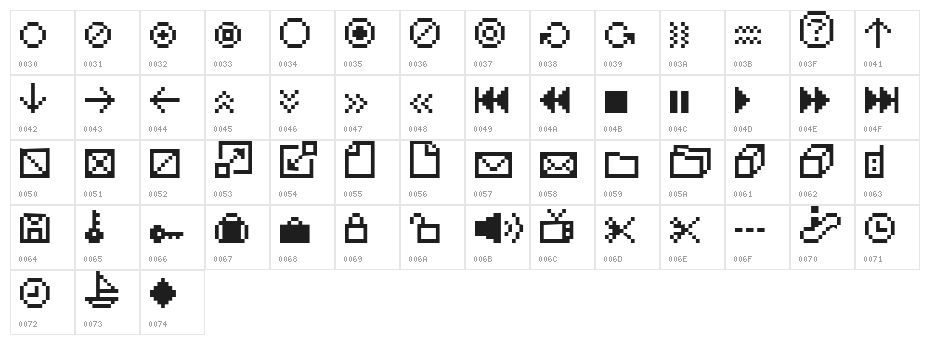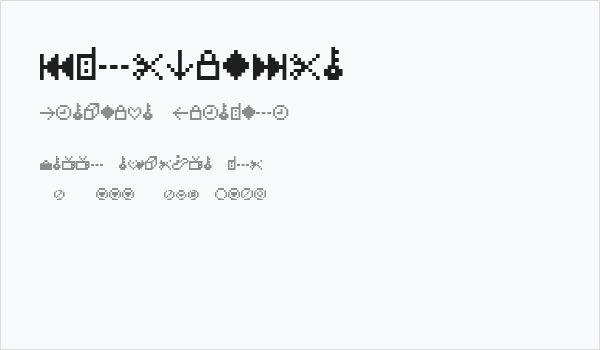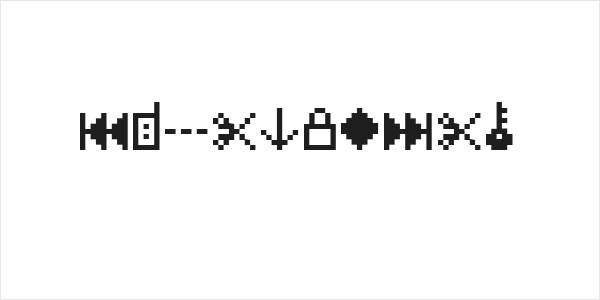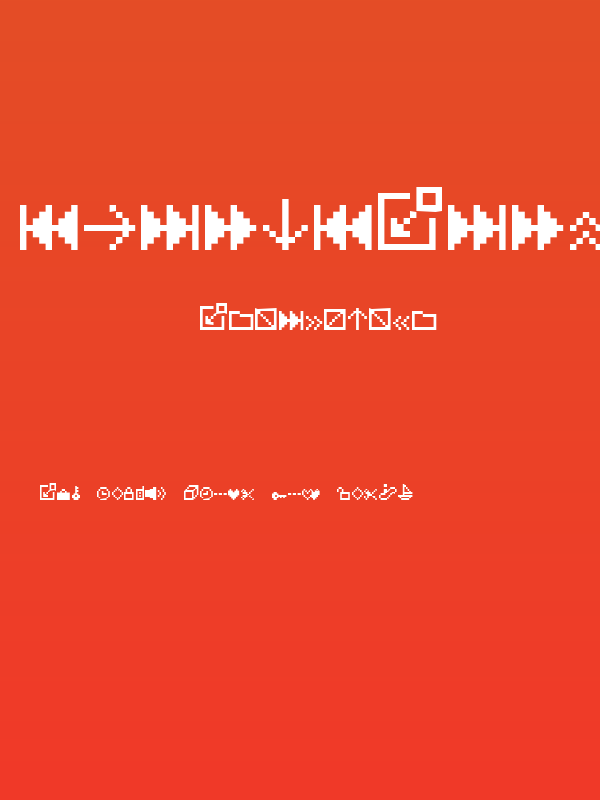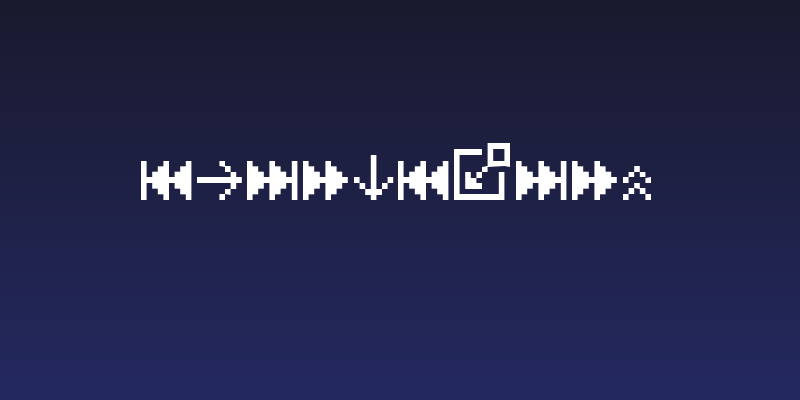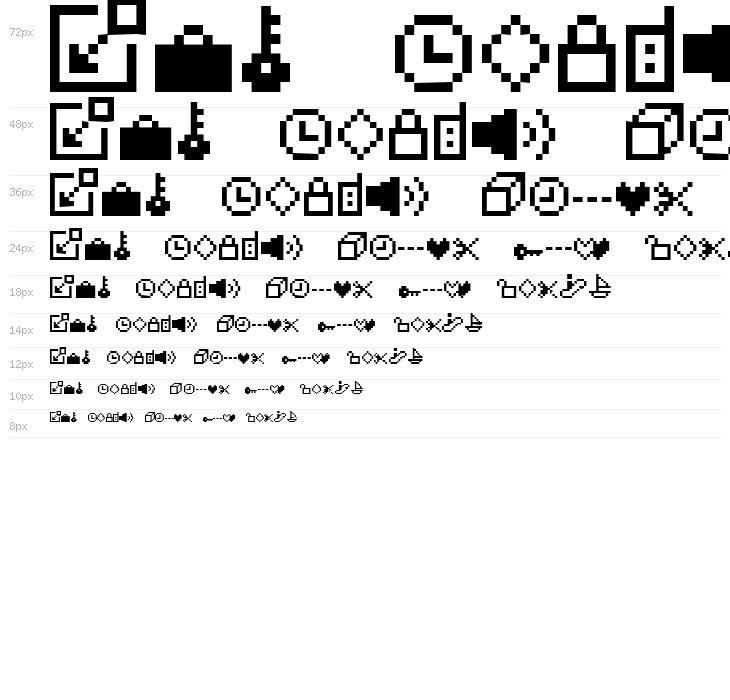
IconBitOne Font
IconBitOne Description
This is not a traditional font but rather a collection of pixelated icons. The icons include arrows, media controls, communication symbols, and various shapes. Each icon is designed with a pixel art style, giving them a retro, digital appearance. The icons are uniform in size and maintain a consistent pixelated aesthetic, making them suitable for digital interfaces or retro-themed projects. The collection includes directional arrows, play and pause buttons, mail and folder icons, locks, and various geometric shapes, all rendered in a simplistic, monochrome style.
Overall StyleRetro, Digital
Use CaseIcons, Digital interfaces, Retro games
Proposed ProjectsIdeal for retro video games, digital interfaces, or any project requiring a pixel art aesthetic.